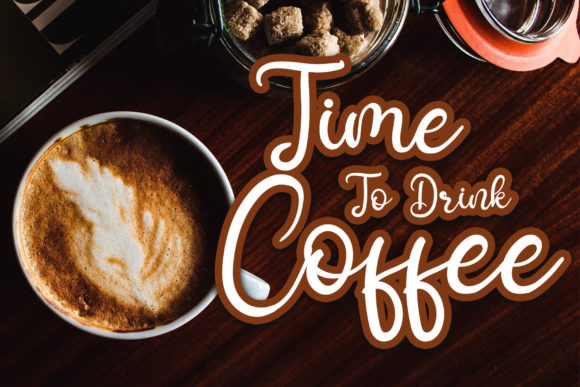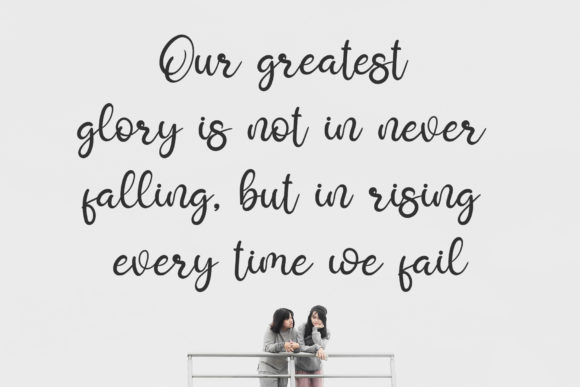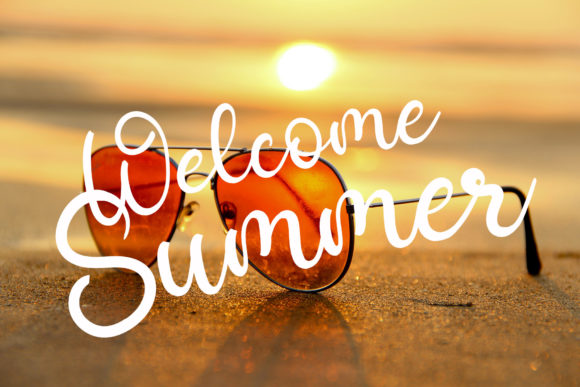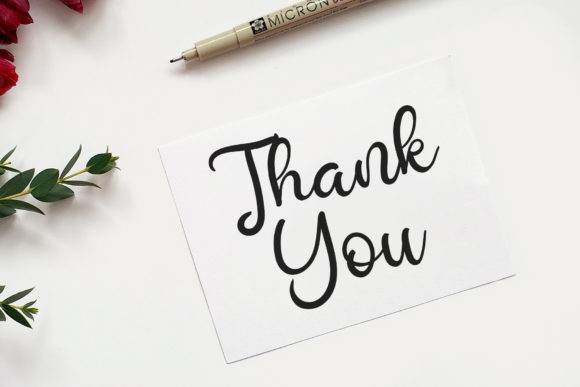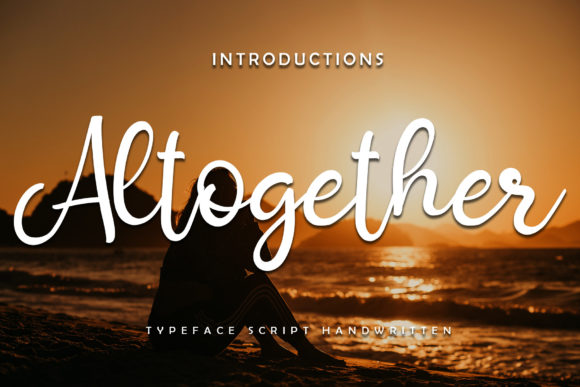
Introducing Altogether Font: Elevate Your Designs with Elegance and Sophistication
In the world of typography, a font can make or break a design. It’s the foundation upon which the entire visual aesthetic is built. For designers and crafters seeking to add a touch of elegance and sophistication to their projects, look no further than the Altogether Font. This beautiful script font boasts a contemporary atmosphere and impeccable form, making it the perfect choice for those who demand excellence.
Balanced and Varied: The Unique Characteristics of Altogether Font
One of the standout features of Altogether Font is its masterful balance. Not too thin and not too thick, this font strikes the perfect chord between elegance and readability. The strokes are carefully crafted to provide a sense of fluidity and movement, while maintaining a level of sophistication that’s hard to achieve with more ornate fonts.
Variety is also a key component of Altogether Font. The characters are designed to work harmoniously together, creating a sense of cohesion and visual flow. Whether you’re working on a logo, branding materials, or a full-scale design project, Altogether Font adapts seamlessly to your needs.
Designed to Enhance the Beauty of Your Projects
At its core, Altogether Font is a creative tool designed to help you elevate your designs. With its elegant script and contemporary feel, it’s the perfect choice for a wide range of applications. From wedding invitations and event branding to packaging and advertising, this font is sure to make your projects stand out.
For crafters and designers who value attention to detail, Altogether Font is a dream come true. The font’s impeccable form and balanced strokes ensure that your designs will look polished and professional, even when viewed at high resolutions.
Key Features and Benefits of Altogether Font
• Elegant Script Font: Altogether Font features a beautiful, flowing script that’s perfect for adding a touch of sophistication to your designs.
• Contemporary Atmosphere: With its modern feel and impeccable form, this font is ideal for designers and crafters who want to create fresh, contemporary designs.
• Balanced and Varied: The font’s masterful balance and varied characters ensure that your designs will look cohesive and visually appealing.
• Impeccable Form: Every stroke and character is carefully crafted to provide a sense of elegance and refinement.
• Versatile: Altogether Font is suitable for a wide range of applications, from branding and advertising to packaging and event design.
To get the most out of Altogether Font, experiment with different sizes, colors, and styles. The font’s versatility makes it easy to pair with other design elements, such as images and graphics.
Font Name Altogether Font
Author Bintang Studio
In conclusion, Altogether Font is a stunning script font that’s sure to elevate your designs. With its elegant form, contemporary atmosphere, and impeccable balance, it’s the perfect choice for designers and crafters seeking to add a touch of sophistication to their projects. Whether you’re working on a logo, branding materials, or a full-scale design project, Altogether Font is a versatile and beautiful tool that’s sure to deliver exceptional results.